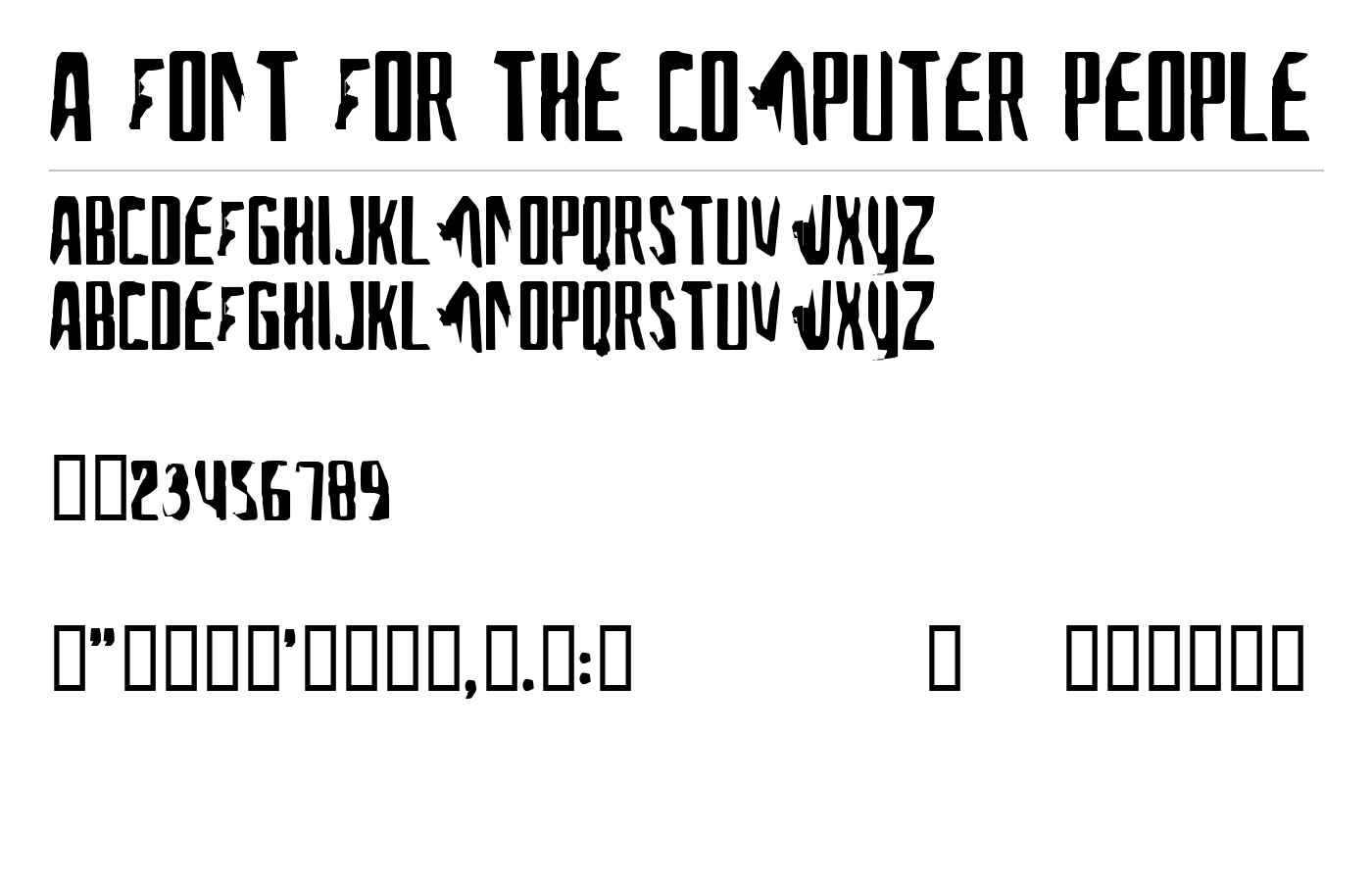
A Font For The Computer People is a bold, condensed sans serif with a distinctive, fragmented design that gives it a tech-inspired, digital vibe. Its strong, irregular shapes create a modern, edgy personality perfect for eye-catching headlines, posters, and branding that wants to evoke a futuristic or cyberpunk mood. This font works well in creative projects where a bold statement and a sense of innovation are desired.